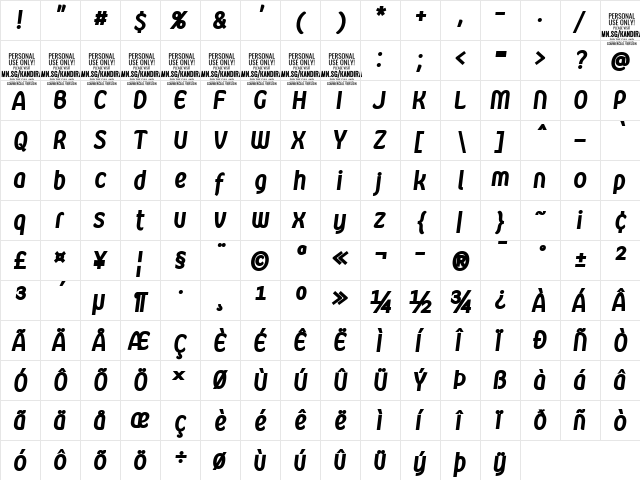
Kandira PERSONAL Black Italic
| Foundry | Mans Greback |
| Designer | Mans Greback |
Design Context for Kandira PERSONAL Typeface
Kandira PERSONAL offers clean, dependable letterforms without strong stylistic allegiance, making it a practical choice for designers who need flexibility. The dynamic lean of this cut emphasises speed and emphasis in any layout.